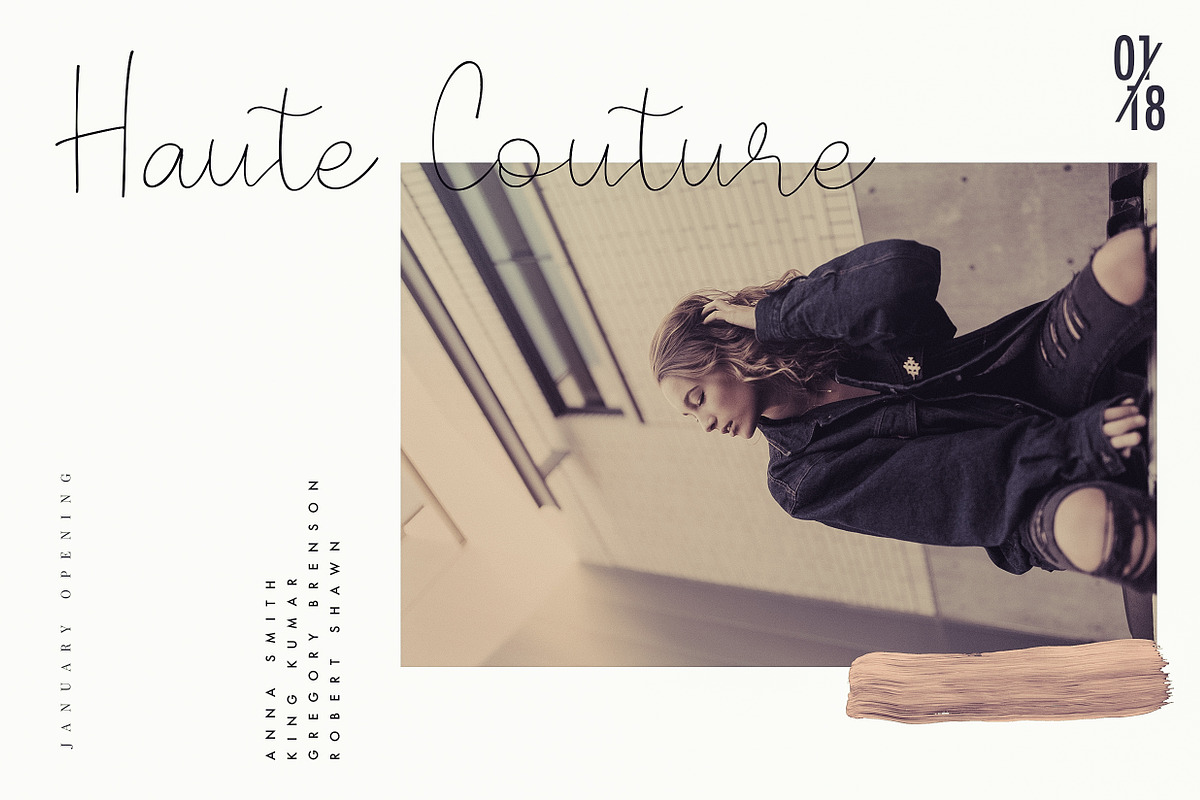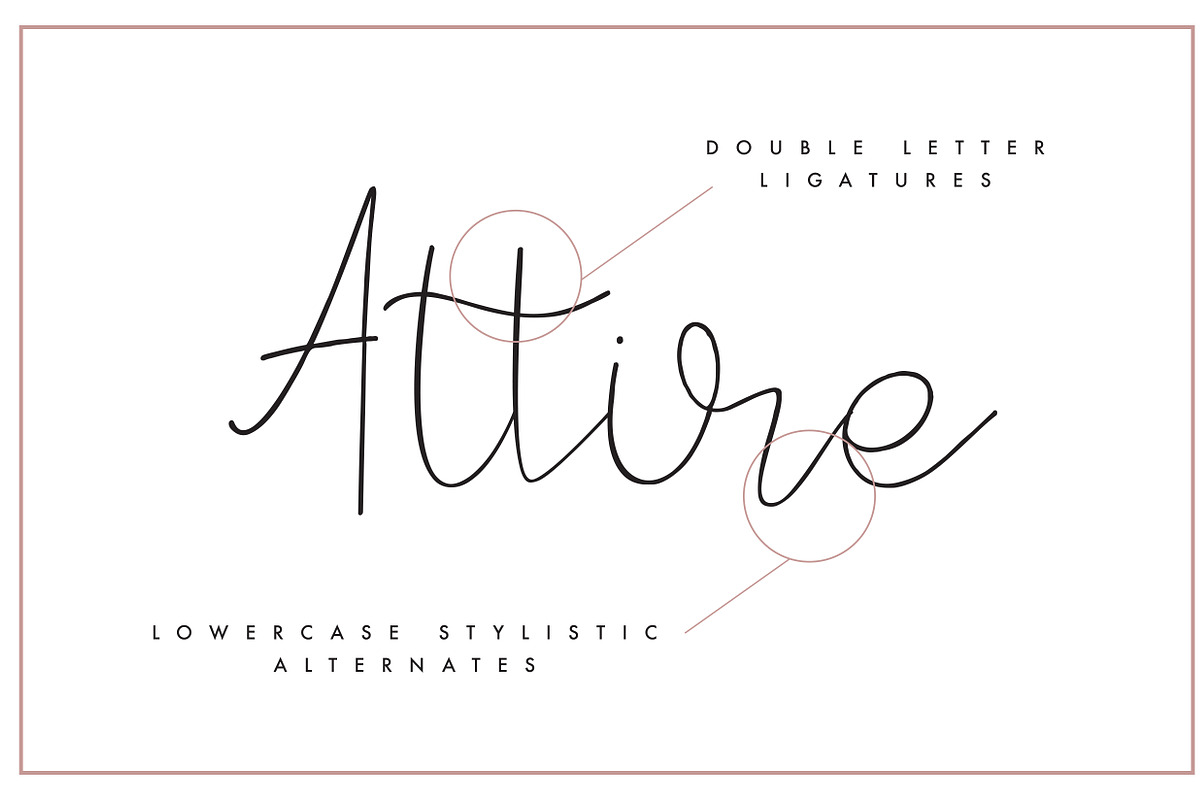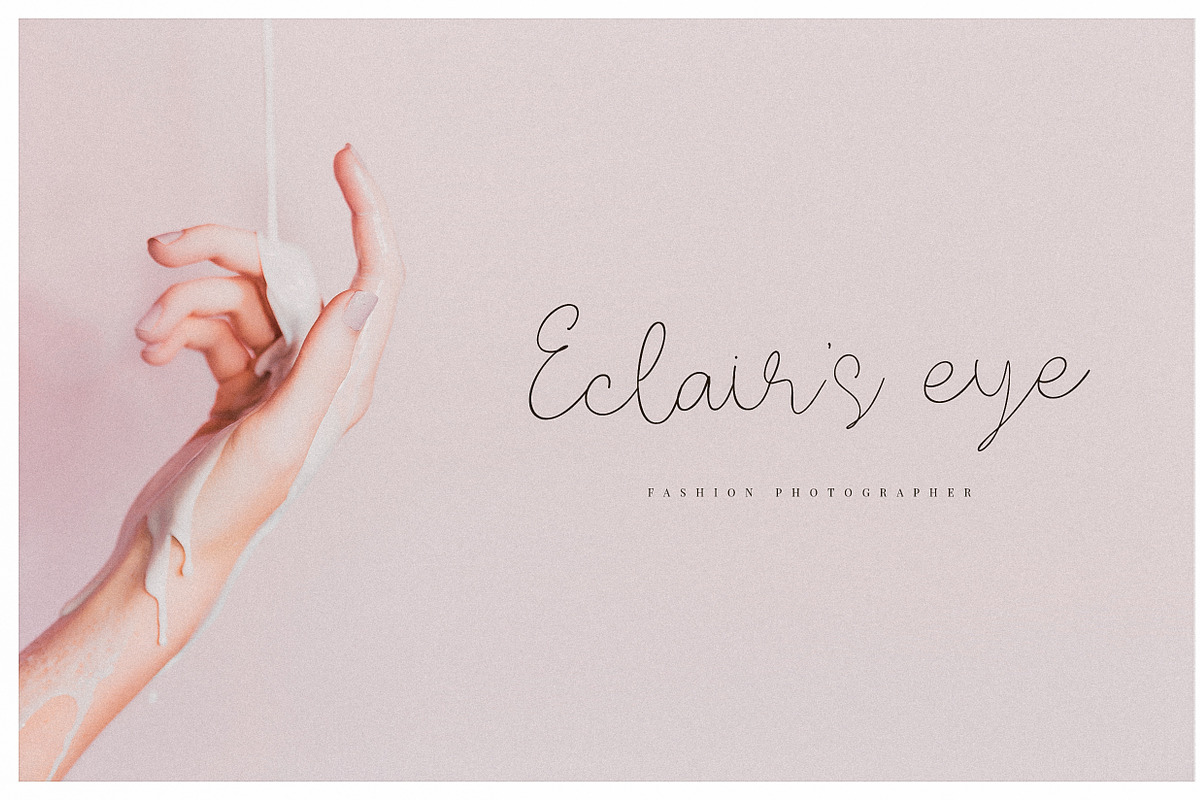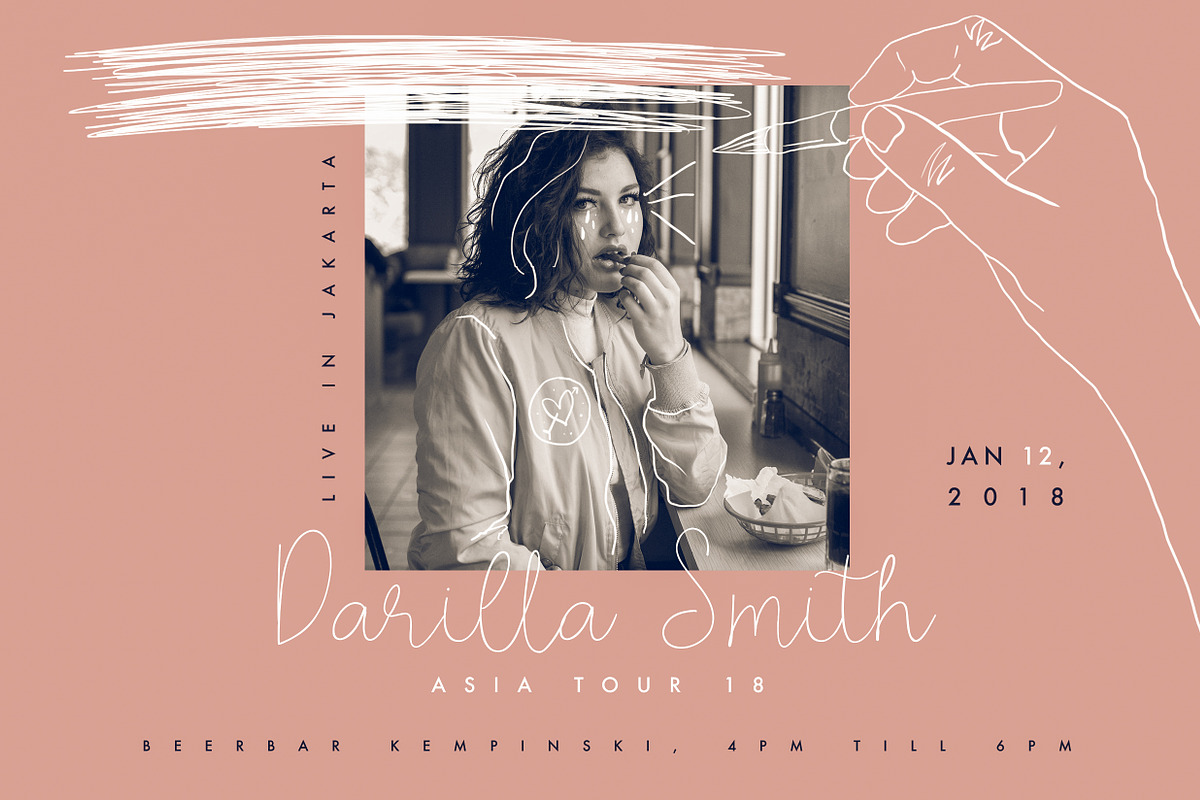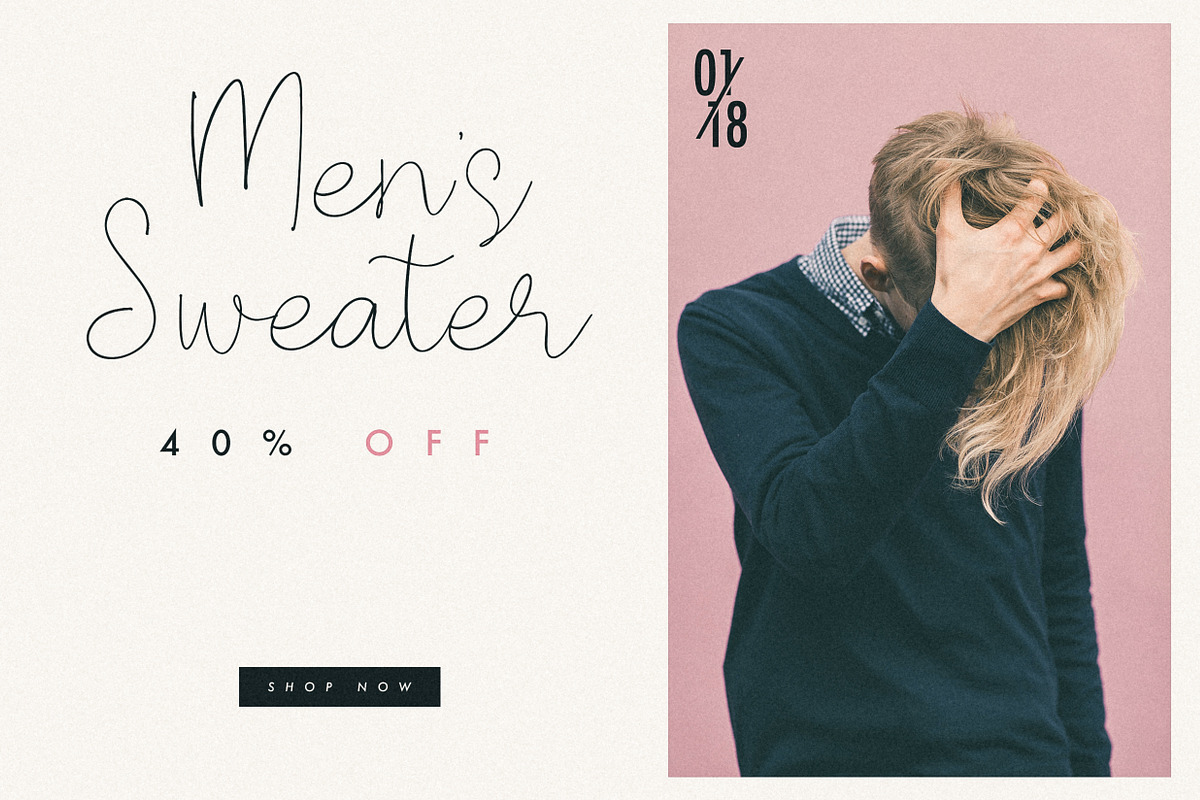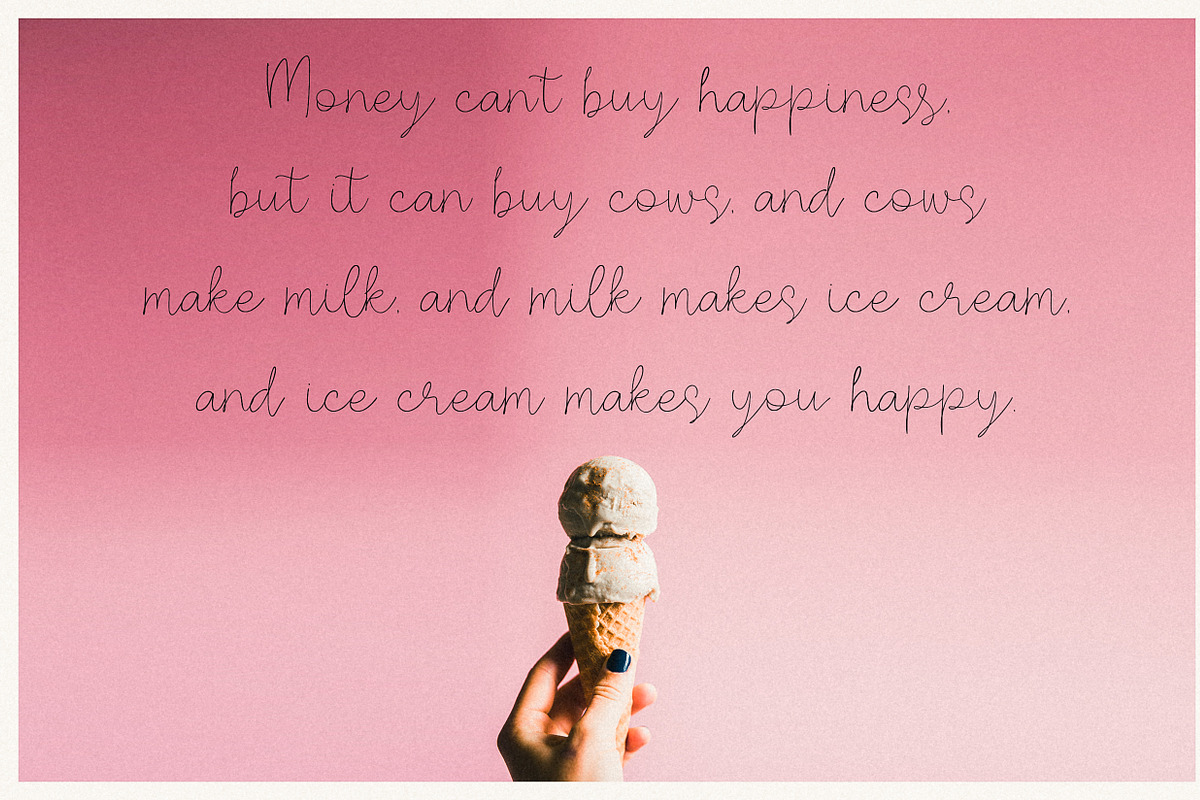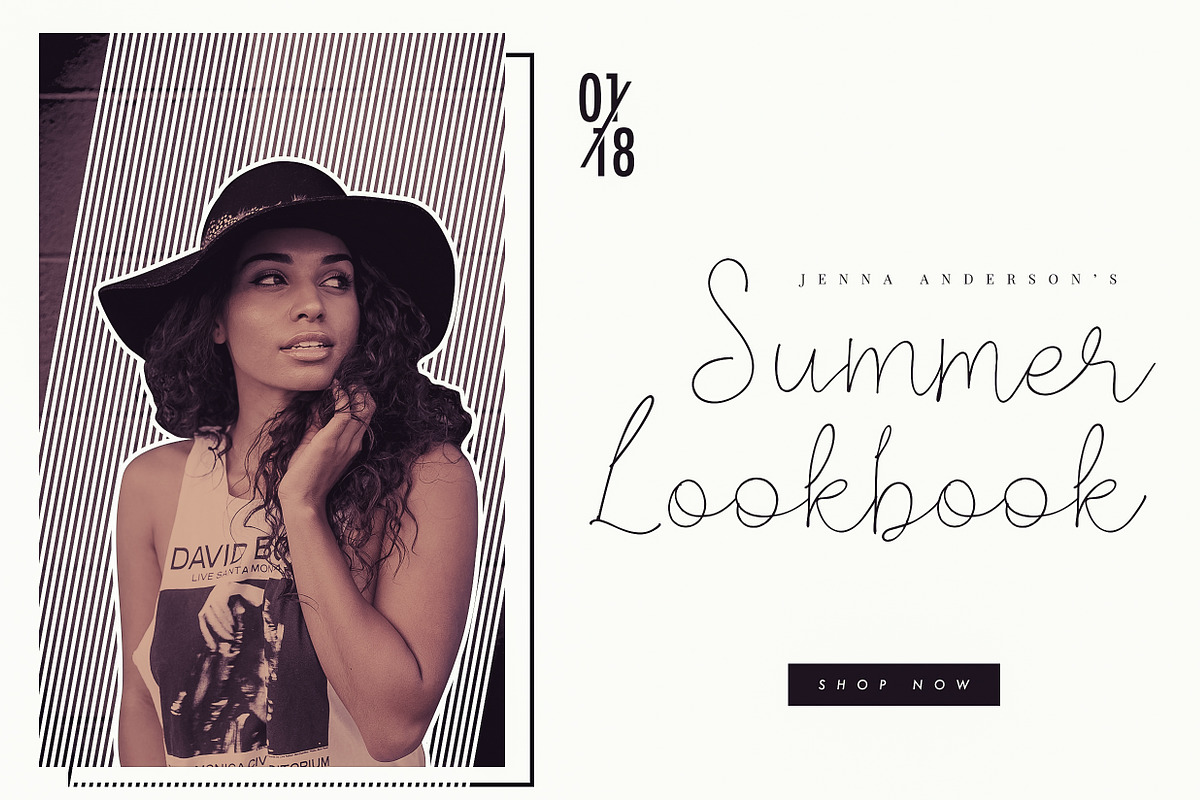
Rosse - Casual Beauty font
Rosse. A casual and beautiful modern calligraphy font. It would be a perfect mate for branding, logo, wedding things, greeting cards, fashion, so versatile, right?
Included Uppercase, Lowercase, Numbers & Punctuations, Multilanguage Support, and a bunch of alternative letters of Lowercase. And ligatures for double-letters to seamlessly make it looks like handwritten.